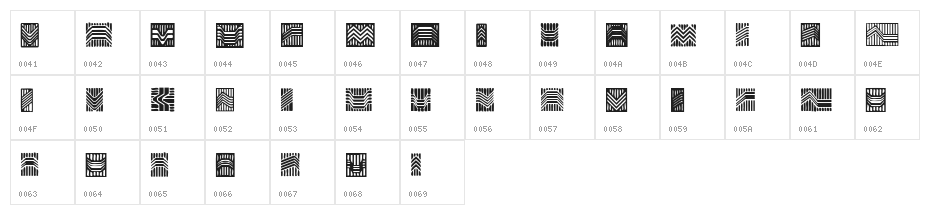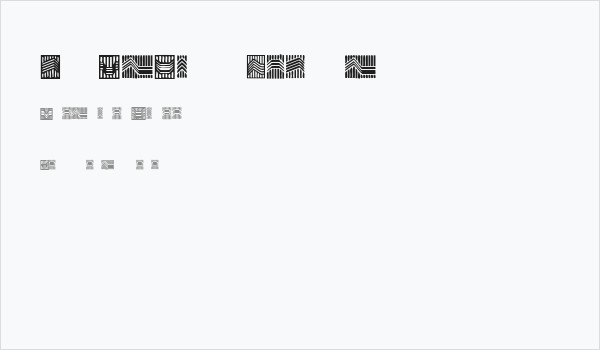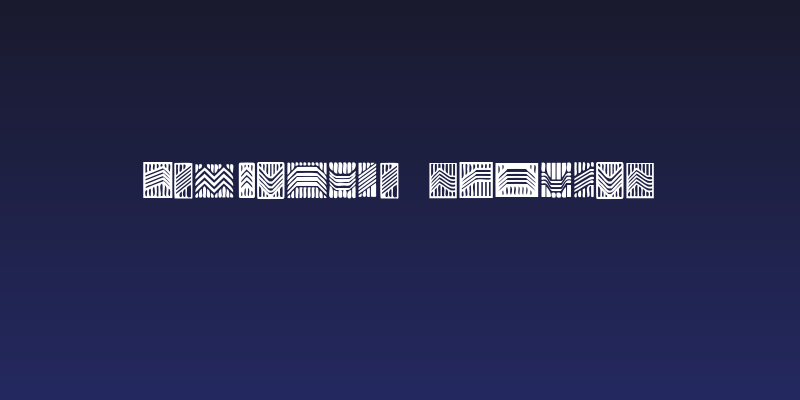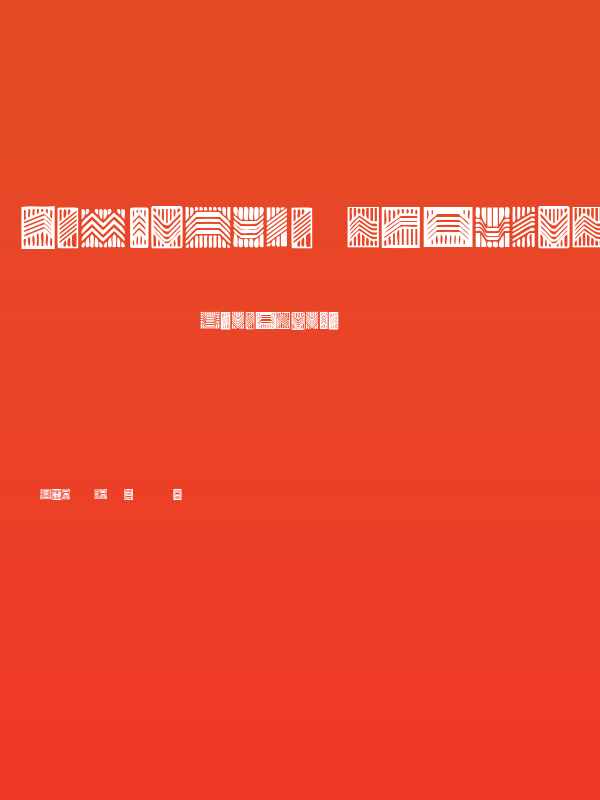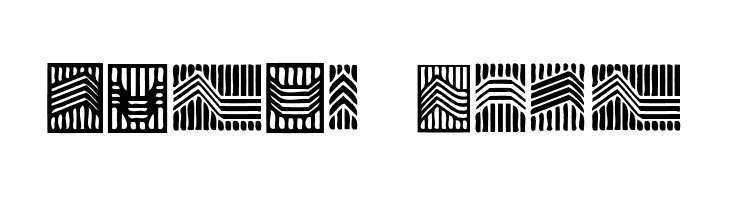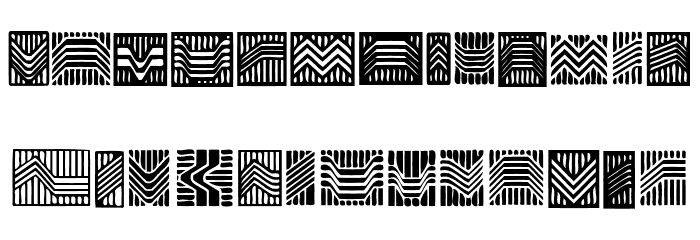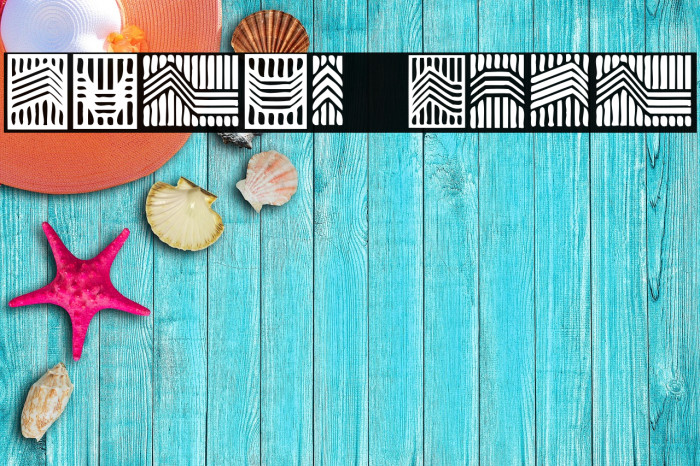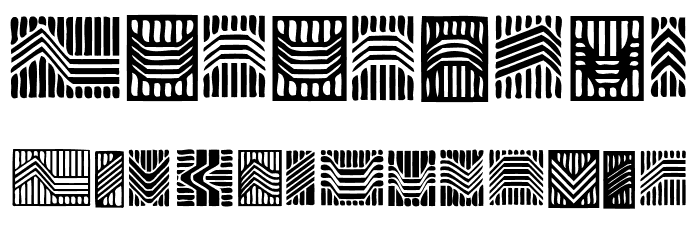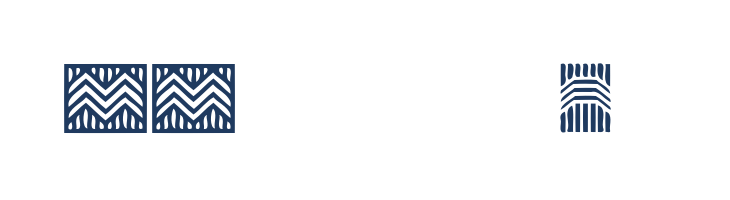
Mokhabiso Regular Font
This font features a highly decorative and intricate design, characterized by bold geometric patterns within square frames. Each character is uniquely crafted with a combination of lines and shapes, creating a visually striking appearance. The font's style is reminiscent of traditional African art, with a modern twist that makes it suitable for contemporary design projects. Its bold and artistic nature makes it stand out, offering a unique aesthetic that can be both eye-catching and culturally rich. The characters are evenly spaced within their frames, providing a consistent and balanced look across the entire set.
| Use Case | Logos, Headlines, Decorative elements |
| Proposed Projects | Ideal for cultural event posters, artistic branding, unique packaging designs, and decorative elements in modern art projects. |